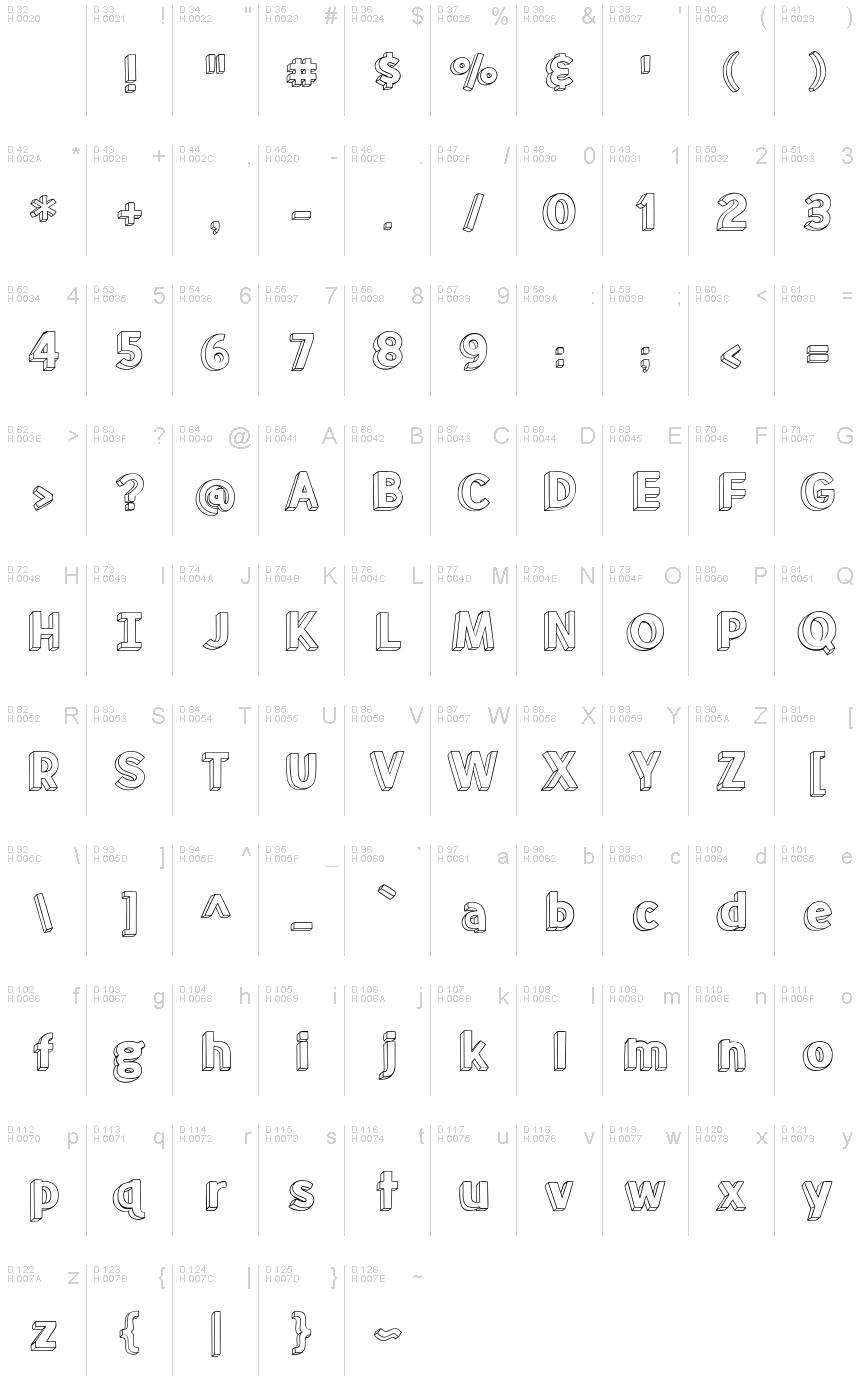
meatloaf shadow outline
Meatloaf is a captivating display font that exudes a delightfully bold and whimsical character. Designed by Brittney Murphy, this 3D comic-inspired typeface boasts a striking shadow outline that adds depth and dimension to its letters. The robust, chunky letterforms evoke a sense of playfulness and energy, making it an ideal choice for a variety of design applications, from eye-catching headlines and posters to dynamic branding and packaging.
Its distinctive style lends itself well to creating a strong visual impact, making it particularly well-suited for attention-grabbing designs. Versatile in its applications, Meatloaf has the potential to elevate any project with its unique blend of visual impact and stylistic flair.